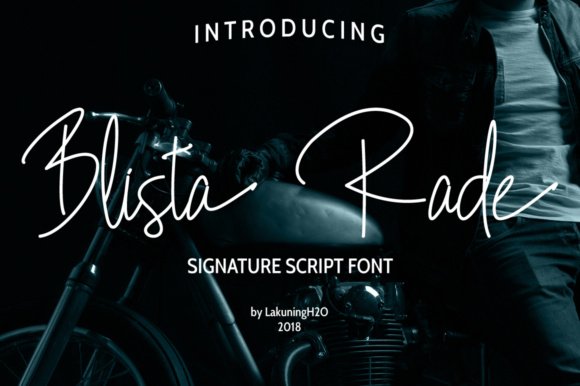
The Art of Signature Script: Elevating Your Designs with Blista Rade Font
There’s something special about the first time you see a handwritten signature that truly reflects a person’s personality. Maybe it was a child’s attempt to mimic their parent’s scrawl or a vintage love letter with a flowing script that seemed to dance across the page. Whatever the moment, it’s likely left a lasting impression on you – and that’s exactly what the Blista Rade Font aims to capture.
Designed to evoke a sense of natural elegance, Blista Rade Font is a beautiful handwritten signature script perfect for displays and logotype works. With its clean flow on each line, this gorgeous script font is an excellent choice for designers looking to add a touch of sophistication to their projects. Whether you’re working on a branding project or a personal design piece, Blista Rade Font is a valuable asset that will help you create stunning visuals.
- Unique Characteristics: The Blista Rade Font features a unique, modern design with a blend of geometric and organic elements, making it perfect for creating visually striking and attention-grabbing designs.
Blista Rade Font Review
I recently had the chance to work with the Blista Rade Font, and I must say it’s a unique and quirky addition to any design project. ✨ One of the things that stands out is its playful and modern aesthetic, which makes it perfect for trendy and youthful designs. The font is highly customizable, allowing you to adjust its weight, width, and other properties to suit your needs.
- ✨ Playful and modern aesthetic
- ✨ Highly customizable
- ✨ Supports a wide range of languages
However, I do have some reservations about the Blista Rade Font. ⚠️ One of the main limitations is its relatively small character set, which may not be suitable for projects that require a wide range of characters. Additionally, the font can be quite thin and may not be the best choice for text-heavy designs or those that require high legibility.
- ⚠️ Limited character set
- ⚠️ May not be suitable for text-heavy designs
- ⚠️ Can be thin and hard to read
Overall, I think the Blista Rade Font is a great choice for designers who want to add a touch of personality and whimsy to their projects. While it may have some limitations, its unique aesthetic and high level of customization make it a great option for the right project.
The Blista Rade Font is ideal for:
- Typography-heavy designs
- Business cards and resumes
- Posters and flyers
Alternatives to Blista Rade Font for Designers
Great Vibes is a beautiful, handwritten font that is perfect for adding a touch of elegance and sophistication to your designs. It is ideal for use in titles, headings, and quotes where you want to convey a sense of luxury and refinement. Great Vibes is more elegant and sophisticated compared to Blista Rade Font, which has a more casual and playful feel.